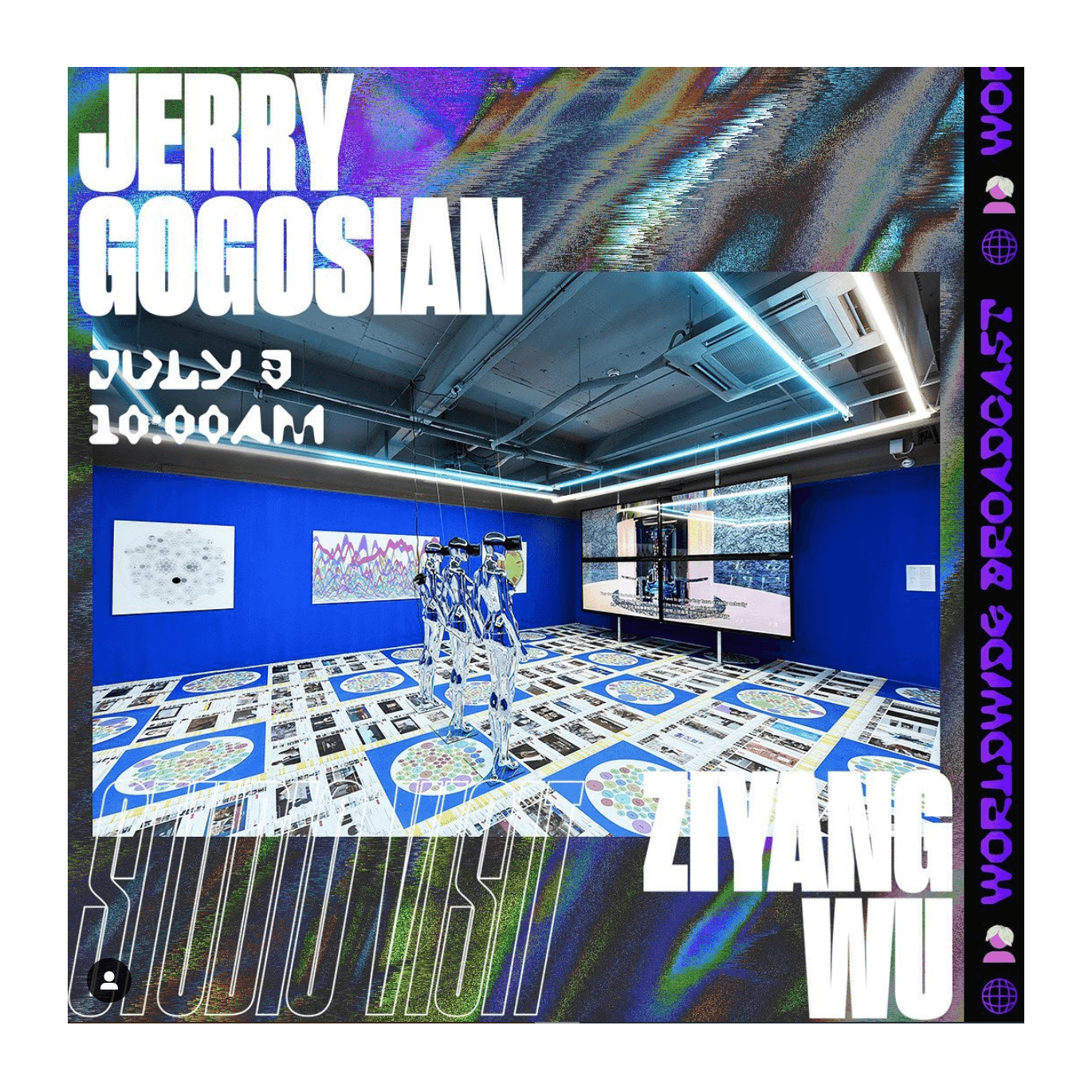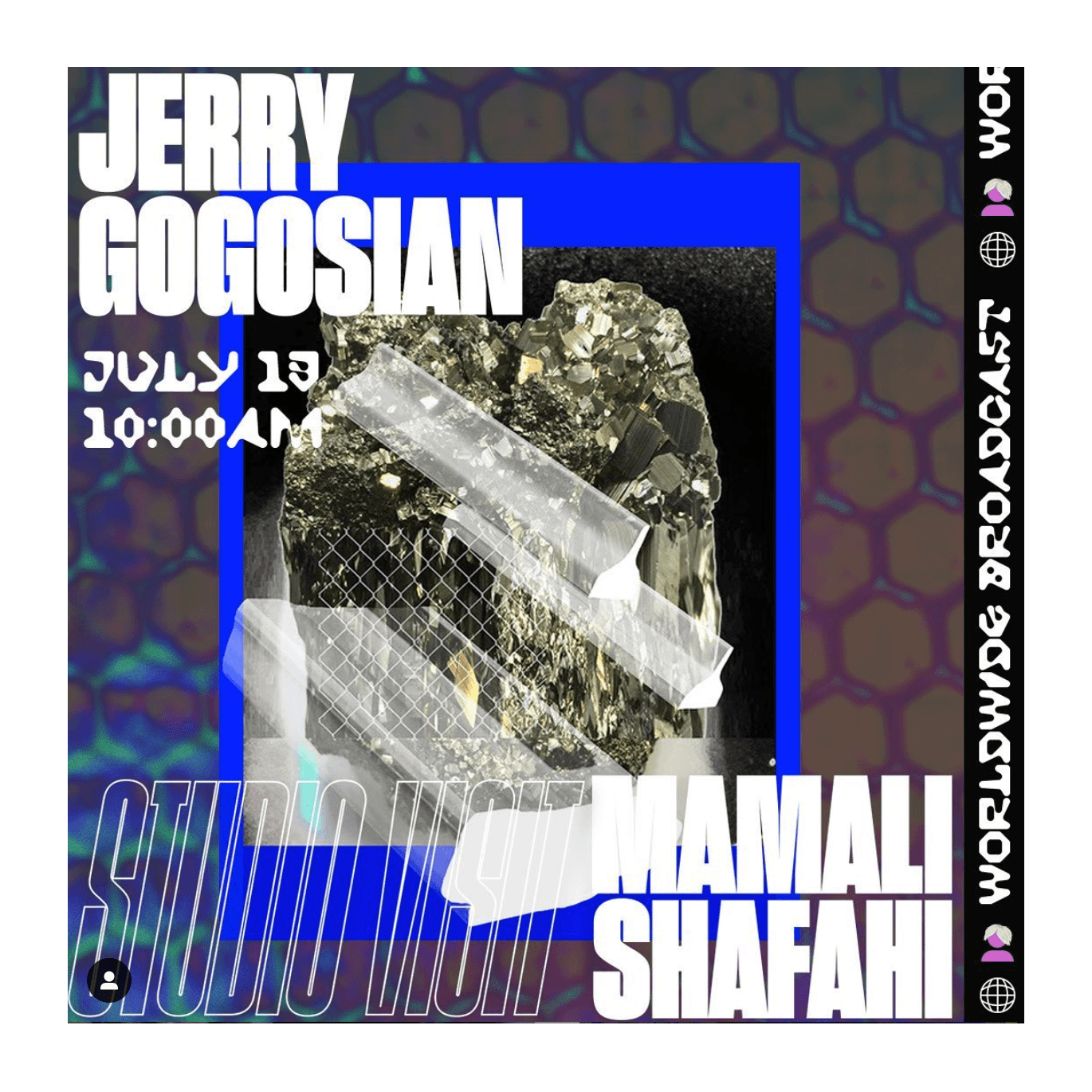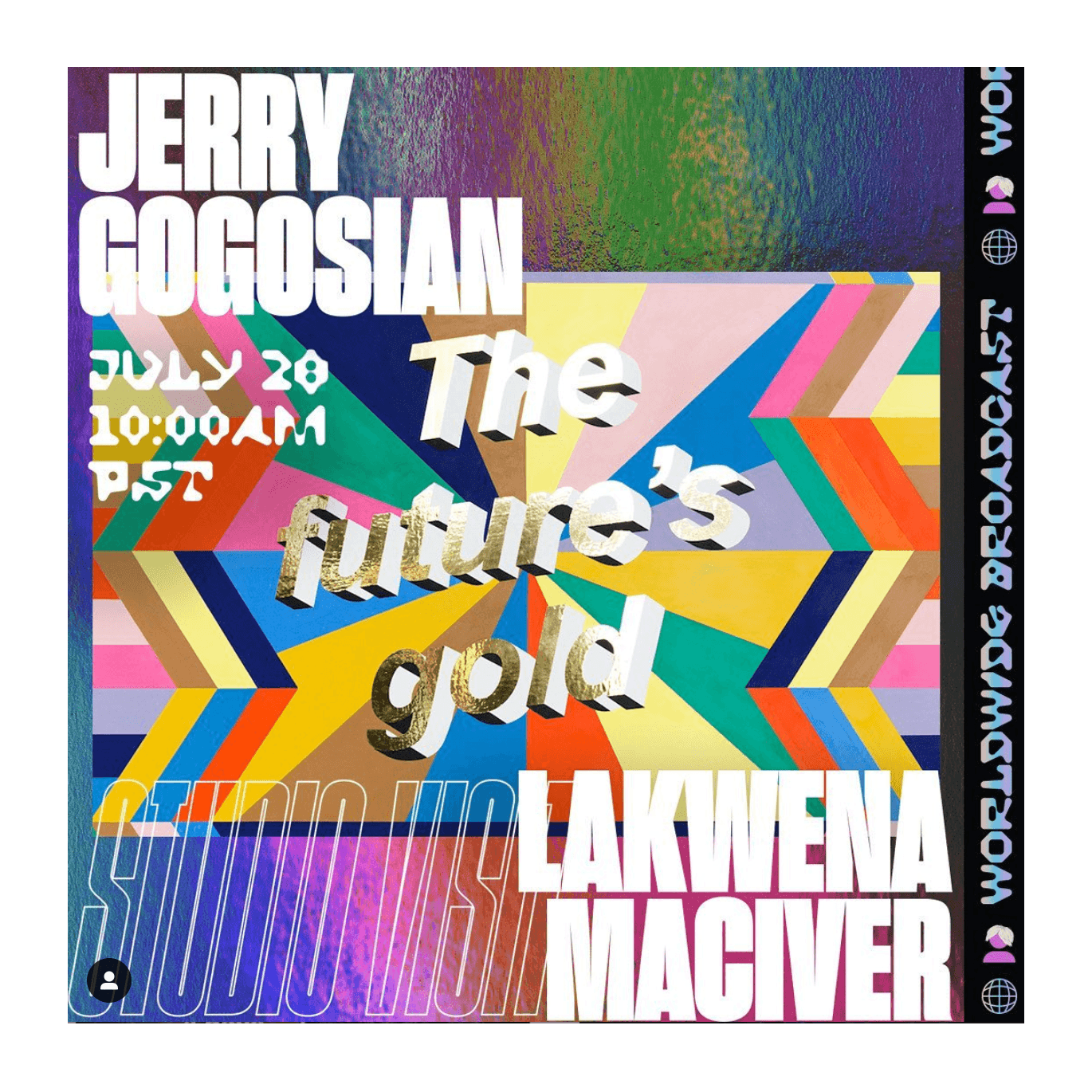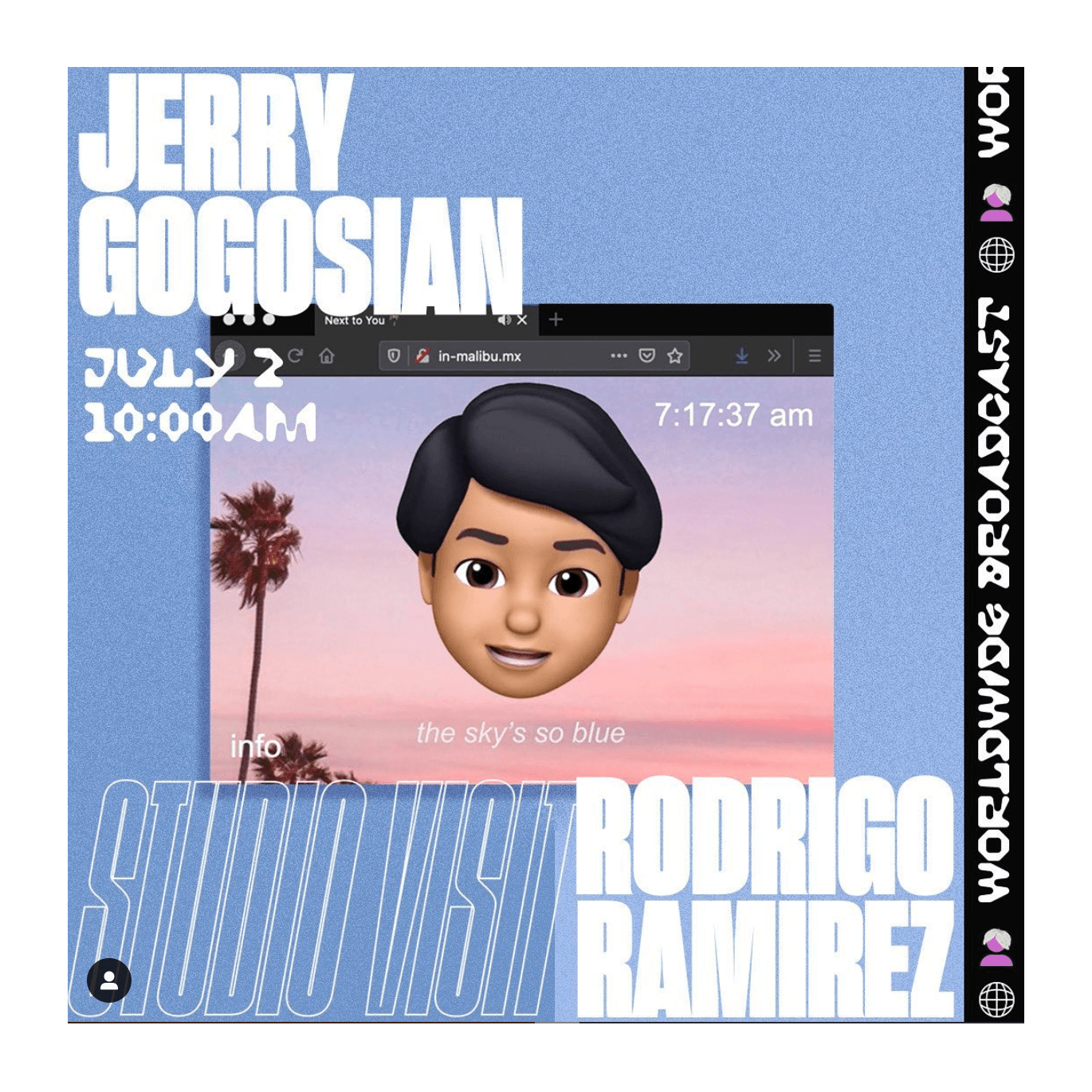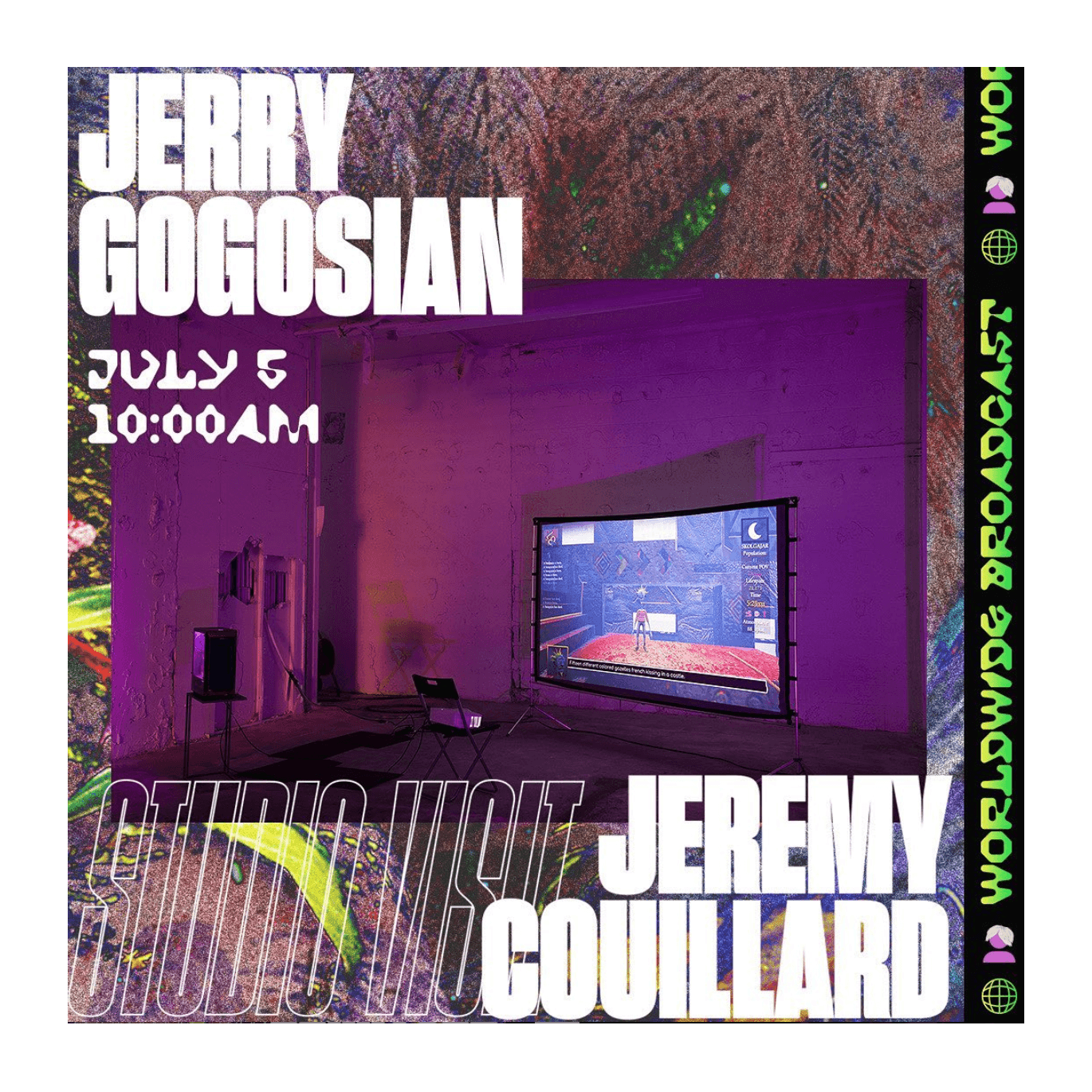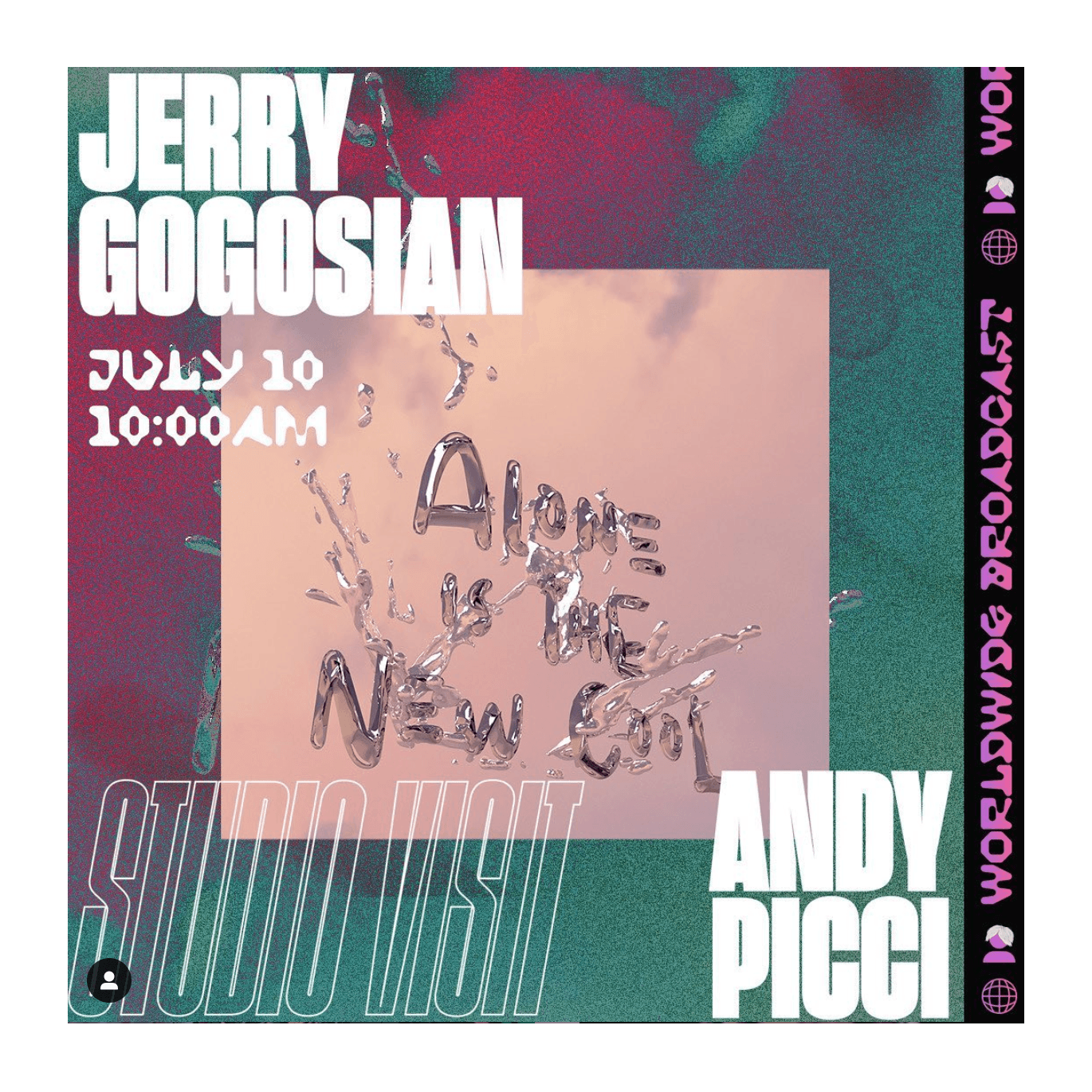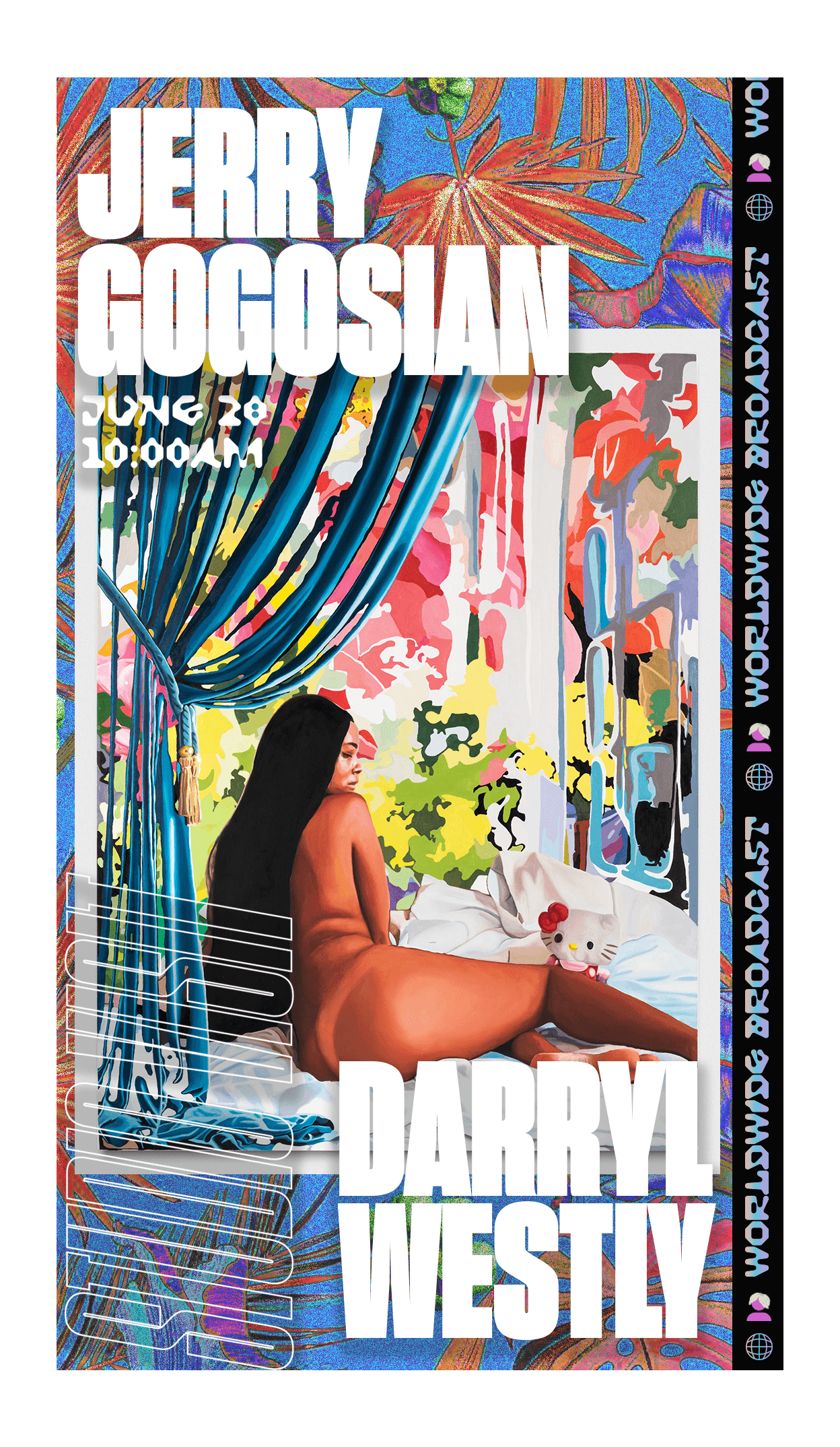
Jerry Gogosian’s true identity remains anonymous to this day, but the art-world satirist has grown popular with memes that poke fun at art-world culture. The woman behind the pen name mashed together two of the art world’s most well-known figures: art critic Jerry Saltz and blue-chip gallery owner Larry Gagosian. Jerry Gogosian makes memes that stir up laughs, and also has more thoughtful, critical discussions with artists in a new interview series on Instagram Live called Studio Visit.
Designer Berto Herrera designed a set of flyers advertising the interviews using Sharp Grotesk. The flyers feature work by painter Darryl Westly, digital media artist Ziyang Wu, virtual reality artist Ali Eslami, and many more. According to Herrera, “Using Sharp Grotesk Black and Hofmann were a great way to show the push/pull, give/take, dog eat dog atmosphere that we all partake in under capitalism. The only guideline given was to design a system that could be used again, everything else I was given carte blanche. Given that larger blue chip galleries and mid-tier galleries gravitate towards minimal modernist approaches/aesthetics that render the flyer as visually safe. I wanted to move away from that notion and illustrate the complexities and hectic times our society lives in while maintaining the artist’s creative integrity and highlighting their work.
Client: Jerry Gogosian
Designer: Berto Herrera
Typeface: Sharp Grotesk